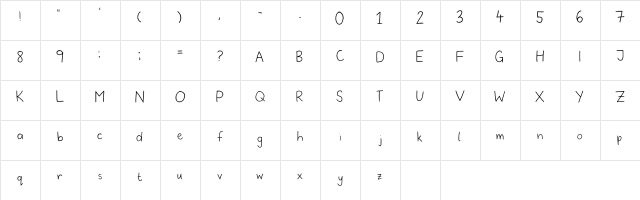
Classic Nosh Regular
Design Context for Classic Nosh Typeface
Classic Nosh has the warm character of retro typography — evoking diners, record sleeves, and the golden age of print advertising.
Font Pairing: Combine Classic Nosh with a simple slab or neutral sans — period-accurate companions reinforce the vintage feel without competing for attention.
Pro Tip: Use Classic Nosh for headlines and pull quotes rather than body copy — its personality is best appreciated in short, focused bursts.